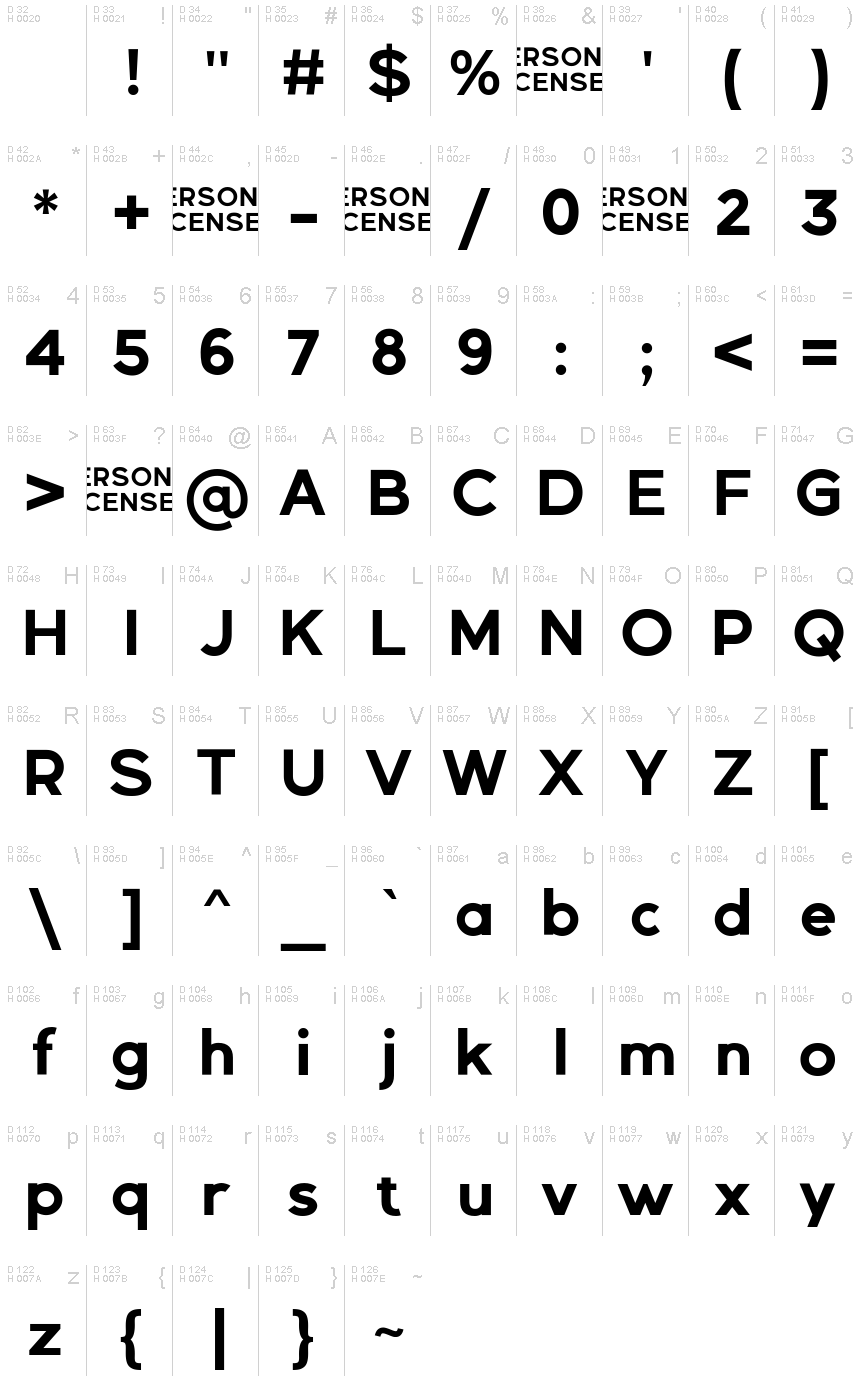
Gexo Sans Bold
Gexo Sans Bold emerges as a distinctive sans serif marvel from the creative mind of Java Pep, boasting a robust and assertive presence. This font exudes confidence with its bold strokes, making a statement that's both modern and timeless. The characters possess an inviting roundness that softens their impact, allowing for approachability amidst the strength.
In design applications, Gexo Sans Bold shines in contexts demanding attention—ideal for headlines, branding, and advertising where its prominent features can be fully appreciated. Its clear legibility also makes it suitable for signage or any project requiring a blend of boldness and clarity.